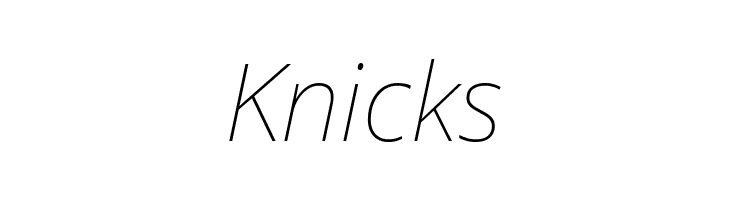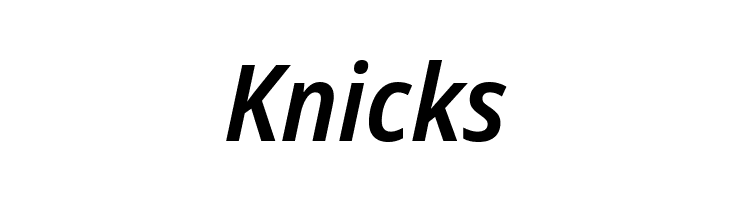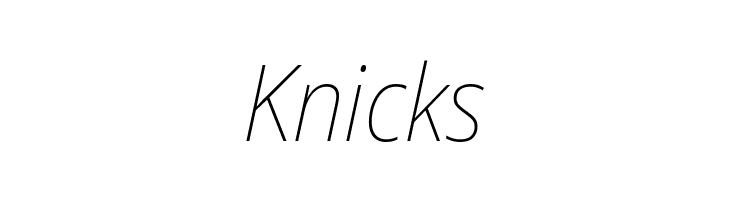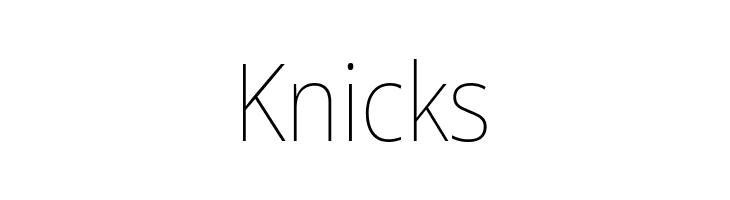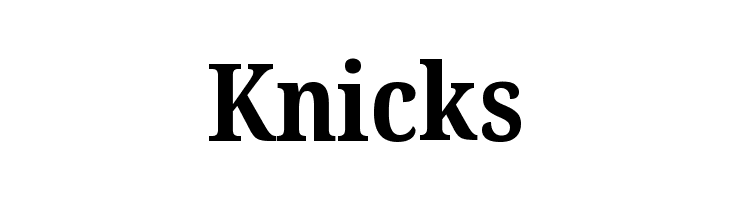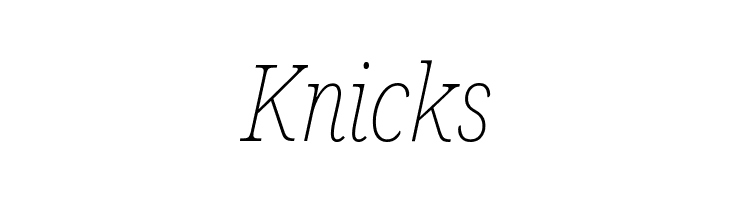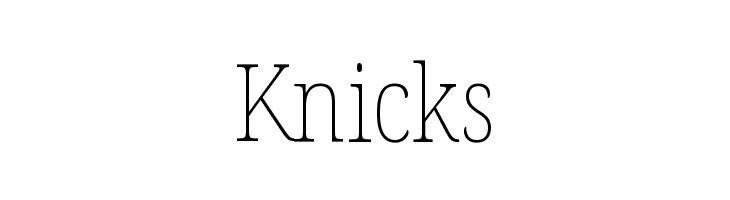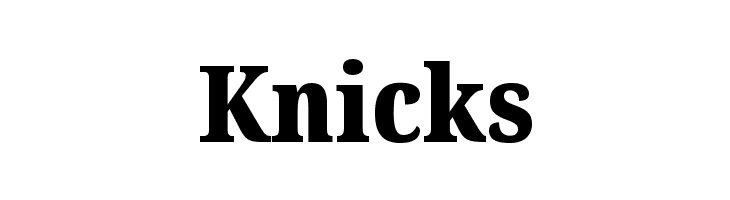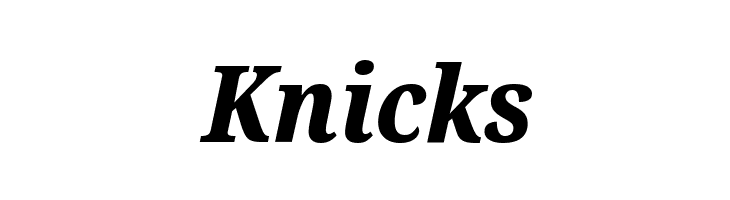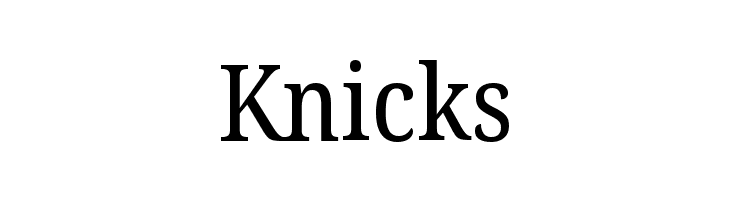
• Noto Sans SemiCondensed Medium Italic
A modern, semi-condensed sans-serif font with medium weight and italic style.
• Noto Sans SemiCondensed SemiBold
A modern, semi-condensed sans-serif font with a semi-bold weight.
• Noto Sans SemiCondensed SemiBold
A modern, semi-condensed sans-serif font with a semi-bold weight, offering clarity and versatility.
A modern, semi-condensed sans-serif font with semi-bold weight and italic style.
A modern, semi-condensed sans-serif font with semi-bold italic styling.
• Noto Sans SemiCondensed Thin
A modern, thin, semi-condensed sans-serif font with clean lines.
• Noto Sans SemiCondensed Thin
A modern, thin sans-serif font with a semi-condensed style.
• Noto Sans SemiCondensed Thin Italic
A modern, thin, semi-condensed sans-serif font with an elegant italic style.
• Noto Sans SemiCondensed Thin Italic
A modern, thin, semi-condensed sans-serif font with an italic style.
• Noto Sans Thin
A clean, minimalist font with thin strokes and balanced spacing.
• Noto Sans Thin
A thin, modern sans-serif font with a clean and minimalist design.
• Noto Sans Thin Italic
A sleek, modern thin italic font with elegant strokes and a refined appearance.
• Noto Sans Thin Italic
A sleek, modern, and thin italic typeface with elegant strokes and balanced spacing.
• Noto Sans Tibetan
No valid font glyphs are shown; only empty boxes are present.
• Noto Sans Tibetan Bold
No valid font glyphs are visible.
• Noto Serif Black
A bold, high-contrast serif typeface with strong, thick strokes and prominent serifs.
• Noto Serif Black Italic
A bold, italic serif typeface with strong contrast and dynamic style.
• Noto Serif Condensed
A refined serif typeface with a condensed structure, offering elegance and readability.
A refined, thin serif font with a condensed style and elegant strokes.
• Noto Serif Condensed Thin Italic
A refined, thin, and italic serif font with a condensed style.